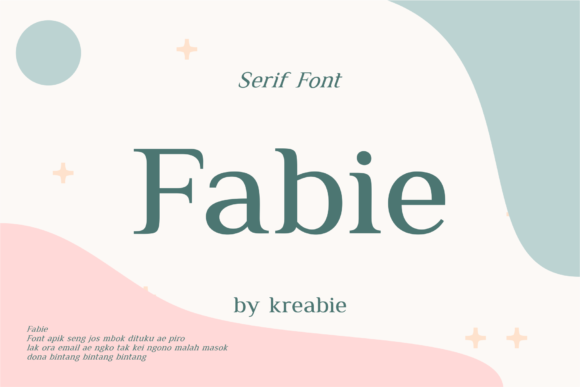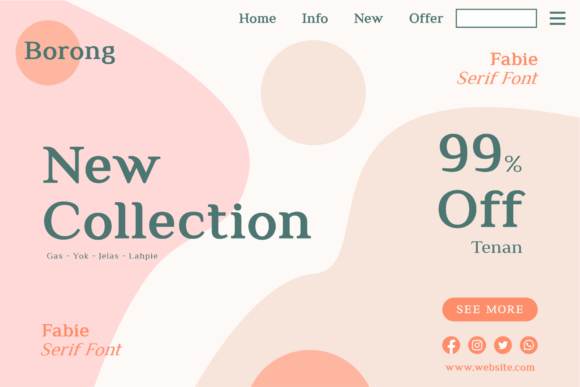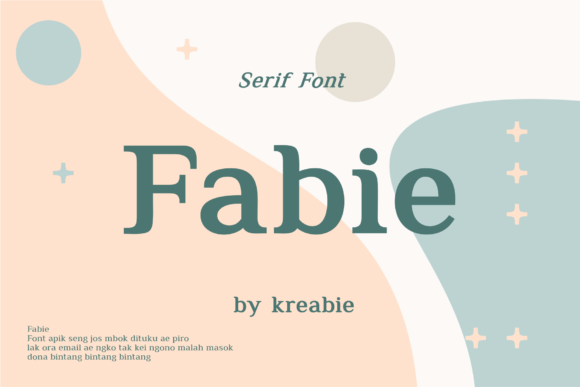
Fabie Font
Fabie is an elegant, versatile and beautiful serif font. Whether you require a font for a formal or informal design, Fable is going to be a wonderful choice.